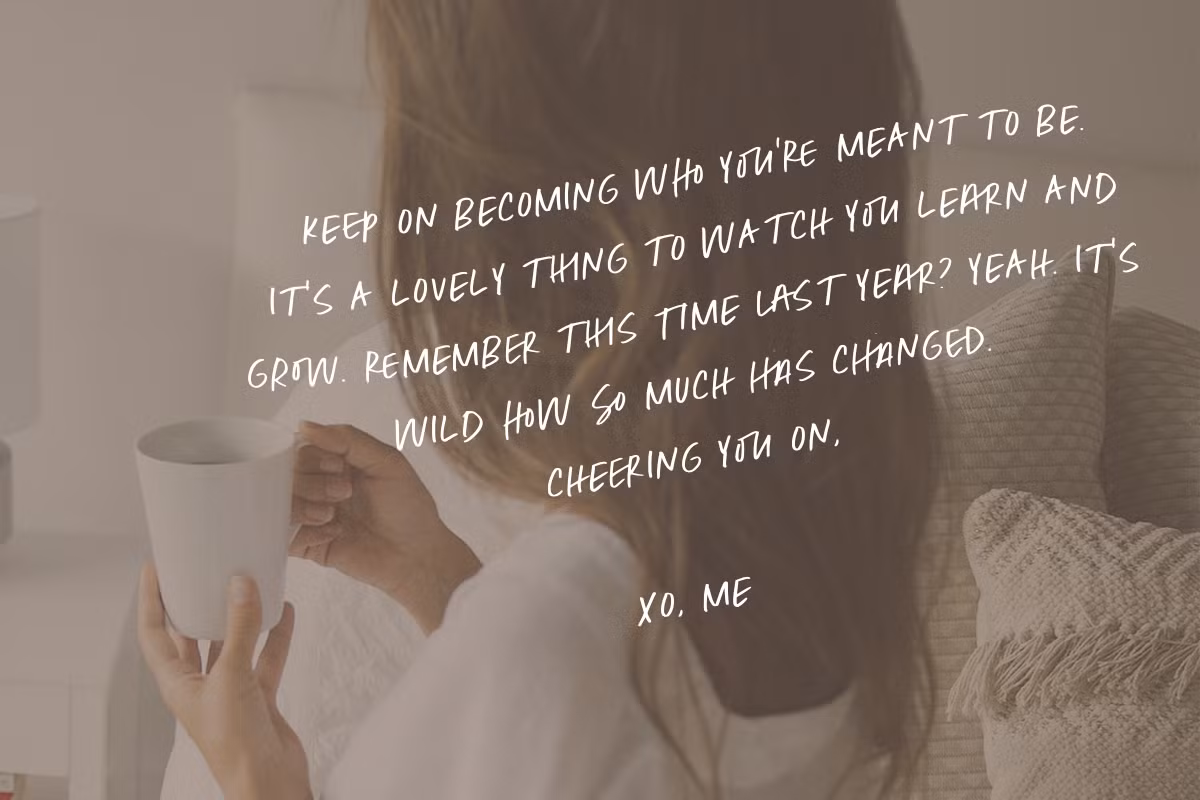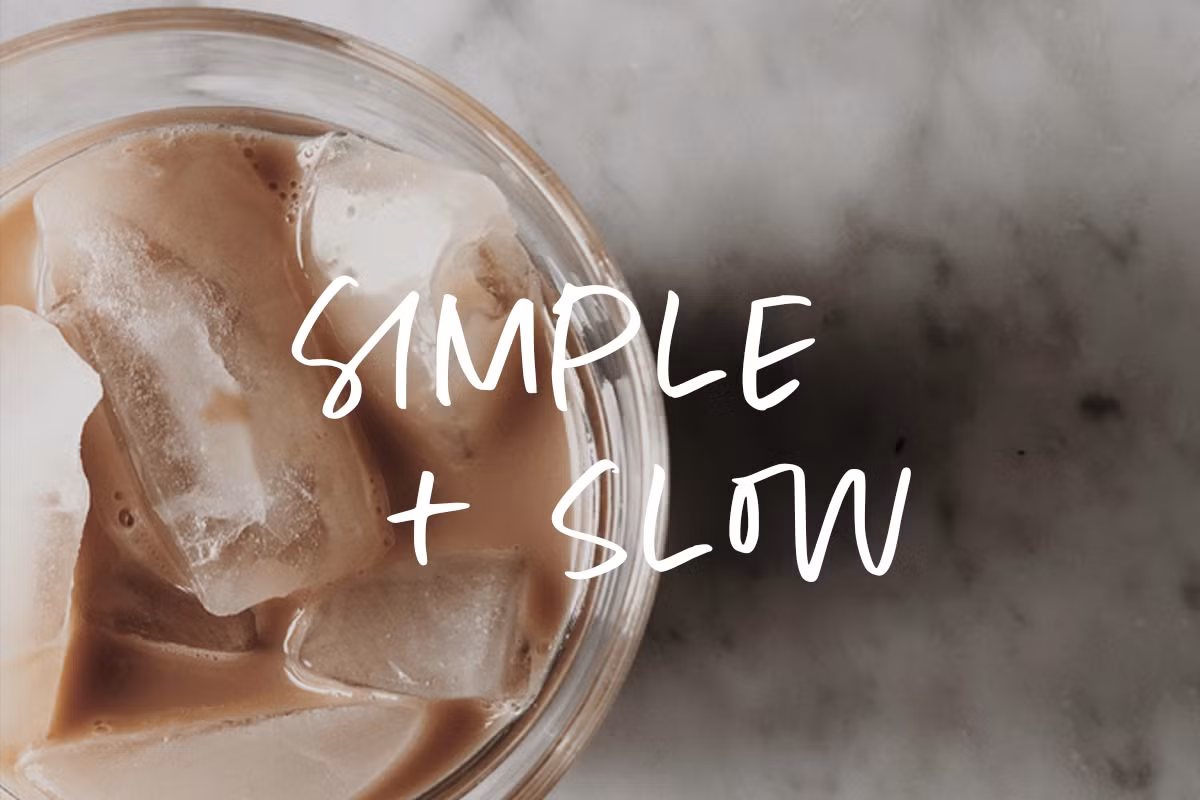
Margot Marker Font: All Caps Handwritten Typeface with Ligatures
The Margot Marker Font has a really cool, handwritten feel to it. It’s an all-caps font with lots of different letter combinations and variations, which makes it perfect for adding a personal touch to your projects. If you’re making a quote for social media or creating an ad that needs to look bold and a little messy, this font is a great choice. It can really make your designs stand out and give them a unique look. With its fun, eye-catching style, the Margot Marker Font is a great way to add some personality to your work.
The Margot Marker Font is really cool because it looks like it’s handwritten. It’s got a casual vibe that makes it seem more real and personal. One thing that stands out about this font is that it’s all in capital letters, which makes it look bold and easy to read. What’s also pretty neat is that it’s got three different versions of each letter, so when you use it, the text looks more interesting and unique. This makes it a great choice for adding some personality to your writing.
The Margot Marker Font has a great design that’s perfect for projects where you want to be real and friendly. It’s casual, so you can use it for personal or work stuff, and it’s easy to read and interesting. The way the letters connect makes the text flow nicely and look good, which makes the whole thing more appealing.
The Margot Marker Font really stands out with its huge collection of characters. It’s not just the regular English letters, but it also works with lots of other languages like Spanish, French, and German. This makes it super useful for projects that need to reach people all around the world. You can use it to make designs that lots of different people can understand, which is really cool. It’s great for anyone who wants to make something that can be used in many different places.
The Margot Marker Font is really cool because it has all the letters, numbers, and punctuation marks you need. So, if you’re making a quote, poster, or flyer, you can use this font to get your point across. It’s got everything you need to make your design look great. You can use it to add numbers and punctuation marks to your text, which makes it easy to convey your message. This font is perfect for designers who want to create something that looks professional and eye-catching. With the Margot Marker Font, you can make your designs stand out and get noticed.
The Margot Marker Font is really useful and can be used in lots of different ways. Here are some popular ways to use it:
- Social Media Posts: Make your posts pop with the Margot Marker Font. It’s perfect for creating quotes or announcements that grab attention.
- Branding and Logo Design: The handwritten style adds a personalized touch to logos and branding materials.
- Posters and Flyers: Great for catching people’s attention quickly with a bold look.
- Invitations and Greeting Cards: Ideal for personal invitations and holiday cards with a warm feel.
- Website and Blog Headers: Create a friendly and approachable feel on your online platforms.
With its unique style, the Margot Marker Font pairs well with various design elements, making it versatile for different projects. Whether you’re going for a modern or classic look, this font can adapt and enhance your design.